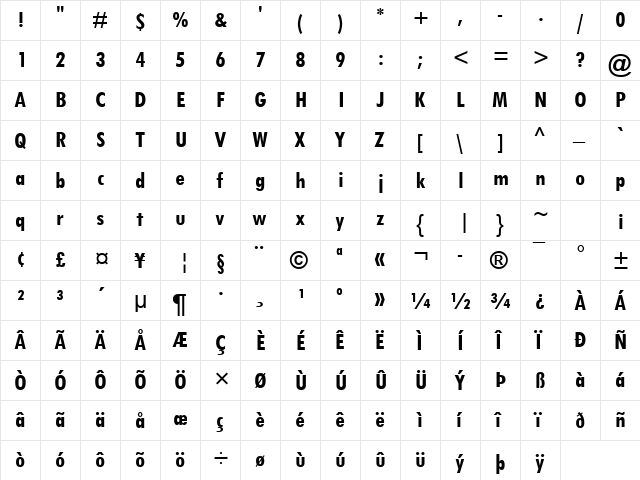
Tw Cen MT Condensed Bold Font Preview
| Foundry | Monotype Typography |
| Designer | Sol Hess |
Design Context for Tw Cen MT Condensed Typeface
Tw Cen MT Condensed offers clean, dependable letterforms without strong stylistic allegiance, making it a practical choice for designers who need flexibility. Its bold stroke weight gives it real presence on the page. The condensed width makes it efficient for tight spaces without sacrificing legibility.
Pro Tip: Pair Tw Cen MT Condensed with a font of contrasting weight or personality to build a more expressive typographic hierarchy.